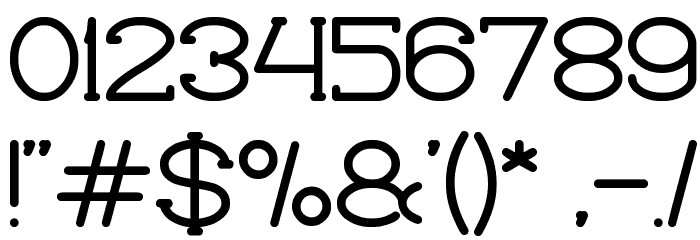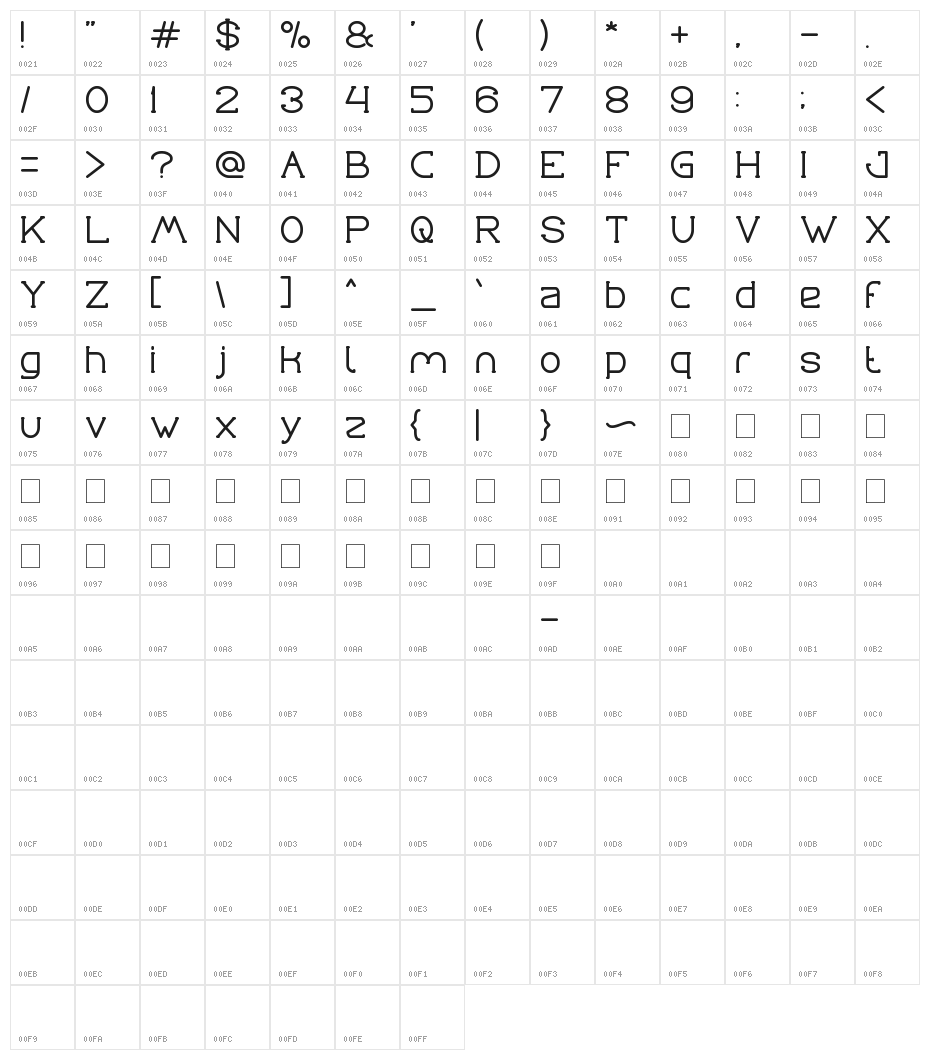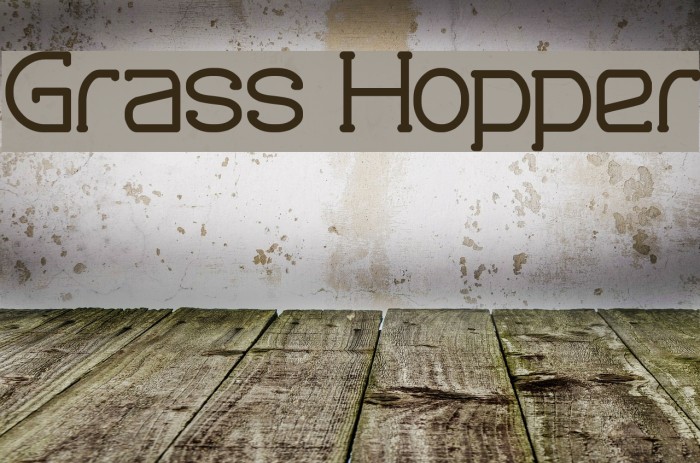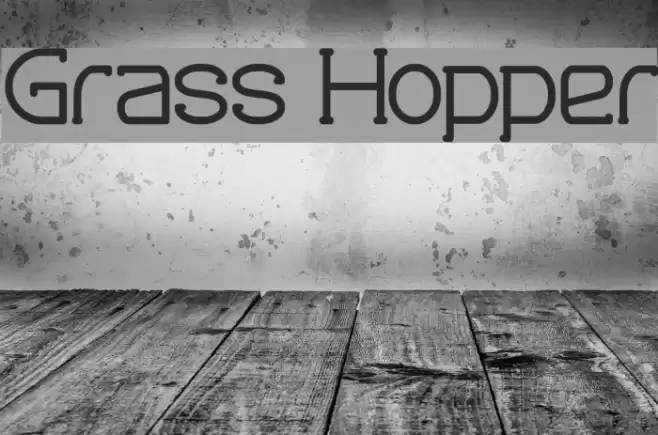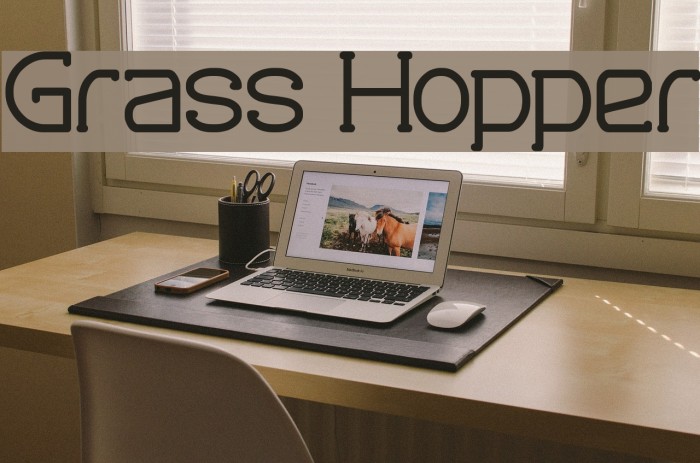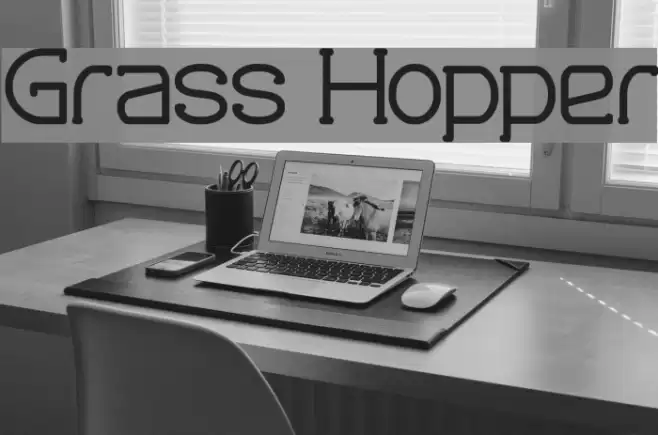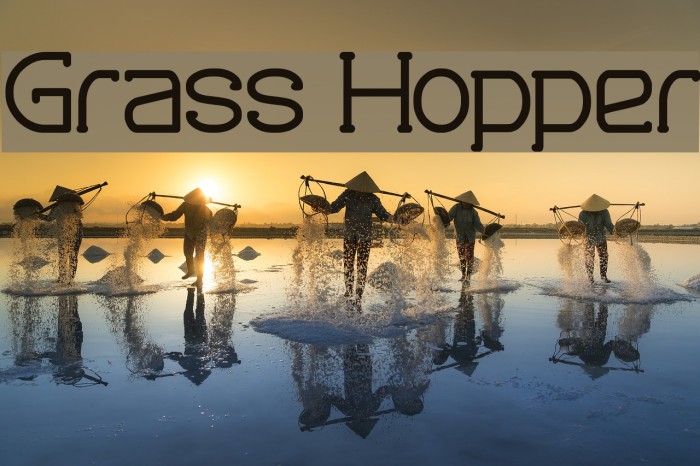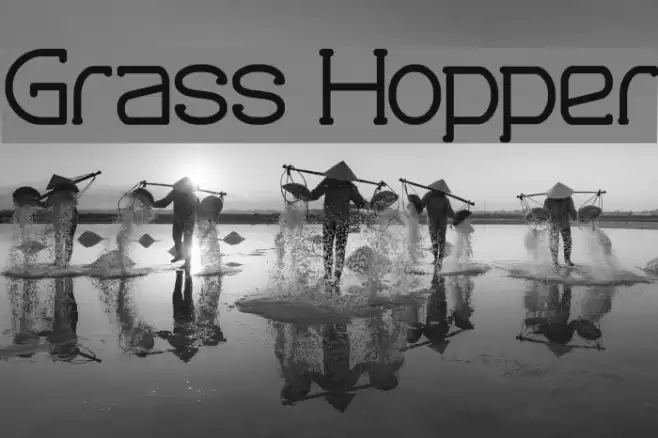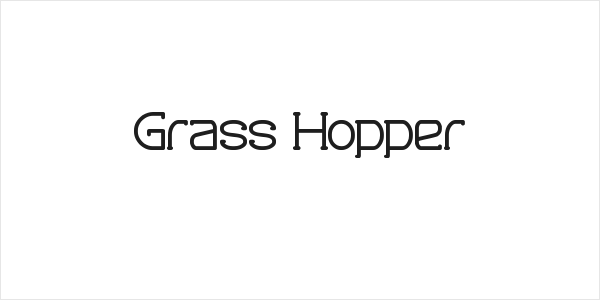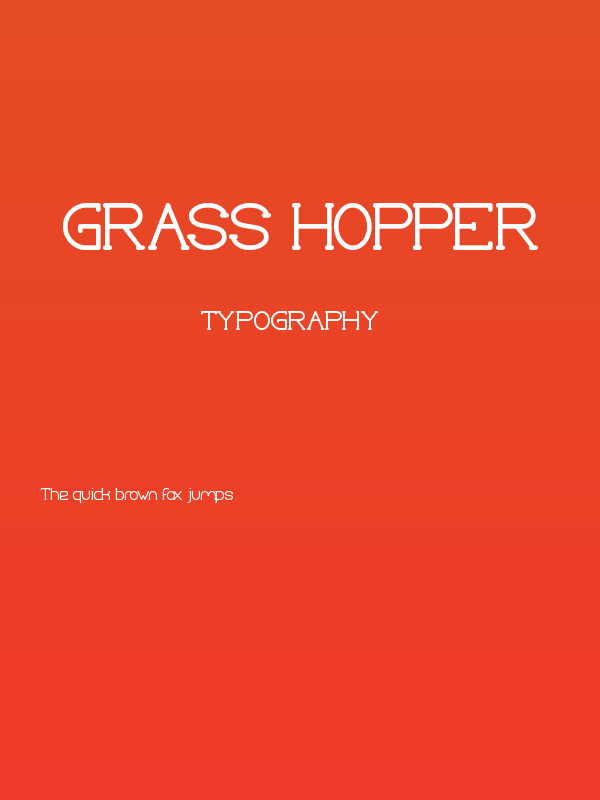
Grass Hopper Font
Grass Hopper Description
This font features a unique blend of geometric and rounded elements, creating a modern and playful appearance. The uppercase letters are characterized by their clean lines and consistent stroke width, while the lowercase letters maintain a similar style with slightly softer curves. The numerals are bold and easily readable, complementing the overall design. Special characters are distinct and maintain the font's cohesive aesthetic. The font's structure is both functional and decorative, making it versatile for various design applications.
| Proposed Projects | Ideal for branding, advertising, and digital media projects that require a modern and playful touch. |